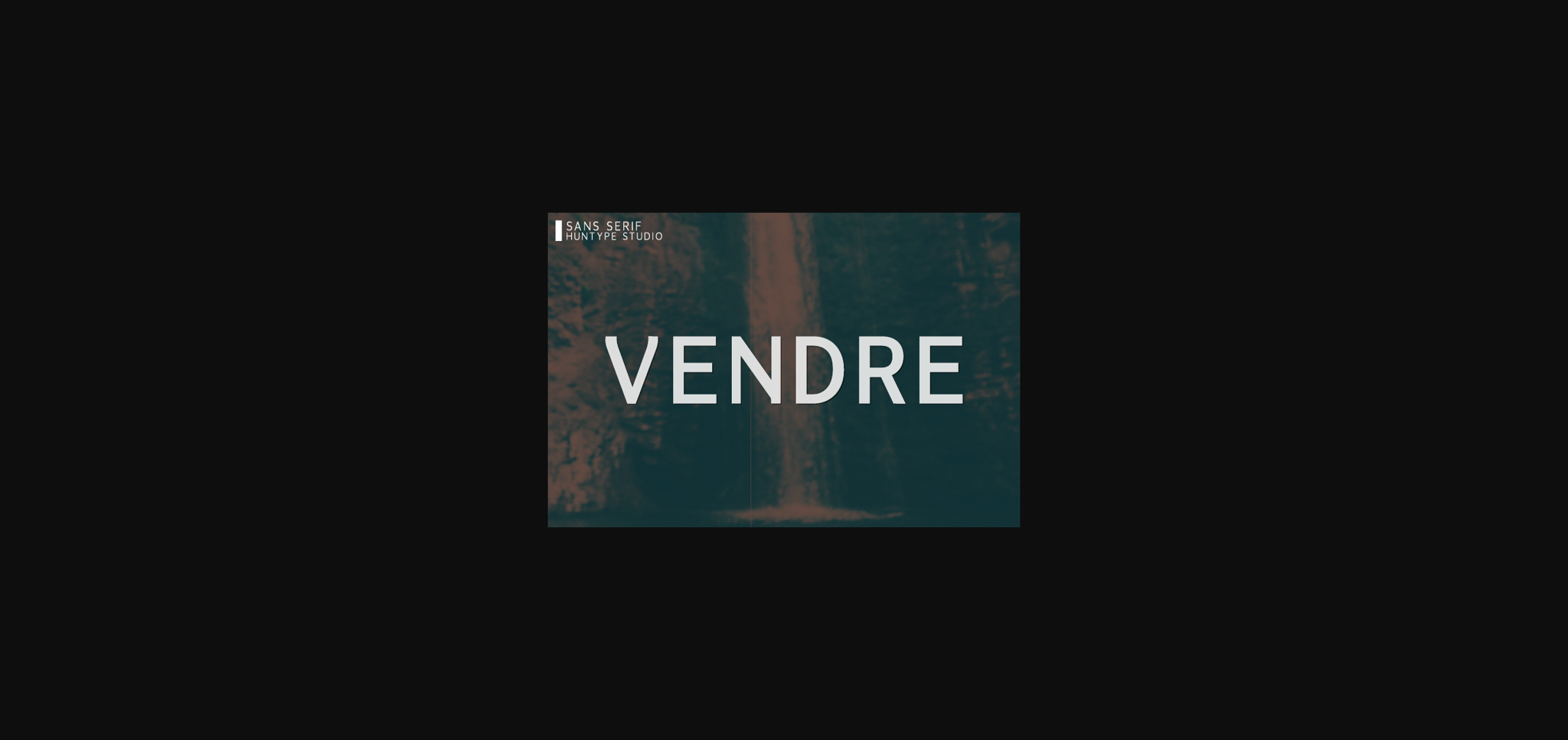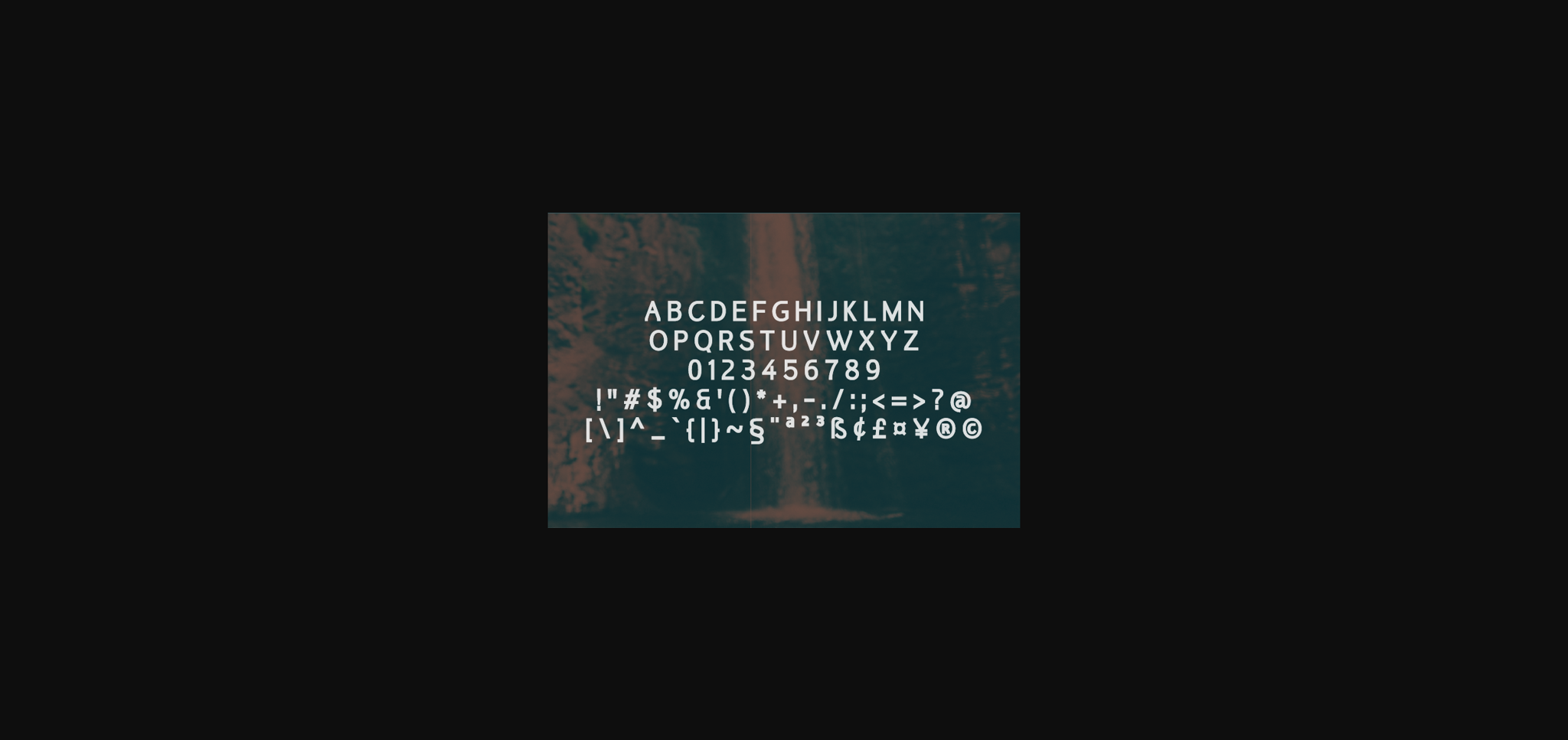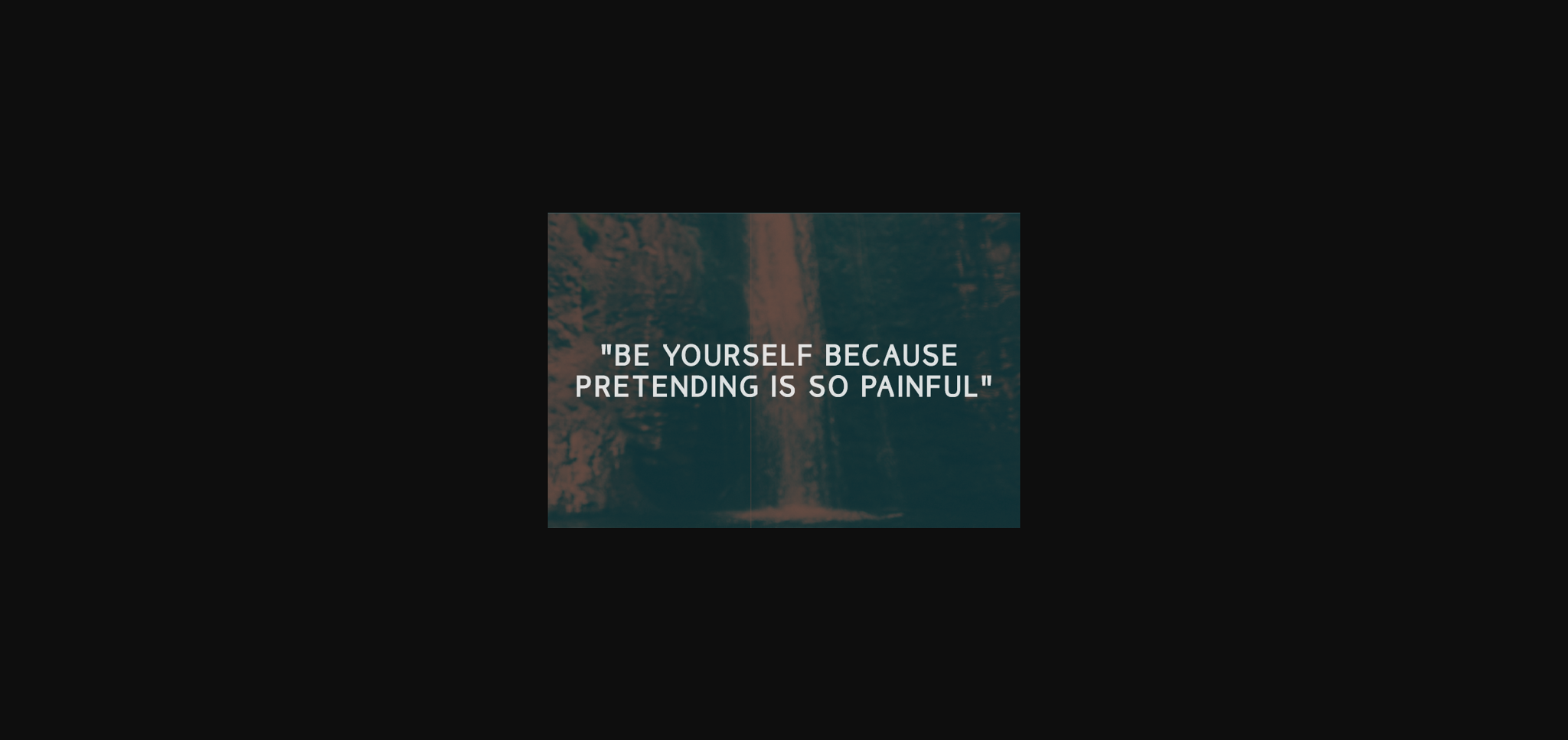
HomeSans Serif FontsVendre Font Sans Serif Fonts Vendre Font FacebookXPinterestWhatsApp 1 of 5 ... Vendre Font Poster 2... Vendre Font Poster 3... Vendre Font Poster 4... Vendre Font Poster 5... About Vendre Font Vendre is a bold sans serif font. Modern and minimalist, this font will fit any design idea you can think of. DOWNLOAD NOW People also explored History Font Molecules Font De Awesome Font Harmonica Font Solar System Font Hornet Font Fashion Signature Font Sweet Love Font Warmesty Font 366 0 TagsVendreVendre Font Previous articleTopbelt FontNext articleBossett Font LEAVE A REPLY Cancel reply Comment: Please enter your comment! Name:* Please enter your name here Email:* You have entered an incorrect email address! Please enter your email address here Website: Save my name, email, and website in this browser for the next time I comment. Personal Use Free Rozalyn Personal Use Free Read more about this font Jellia Personal Use Free Read more about this font Rennoya Personal Use Free Read more about this font Genres Personal Use Free Read more about this font BLOG Free Fonts Risk: Why Free Fonts Can Be Dangerous for Designers Free Fonts Risk: Why Free Fonts Can Be Dangerous for Designers Using free fonts is a common practice in web and graphic design. However, the... Where to Buy American Fonts Online in 2024 Transform Your Website: Elevate Your Typography with 7 Best Web Font Generators Best Fonts for YouTube Videos: Make Your Thumbnails Stand Out